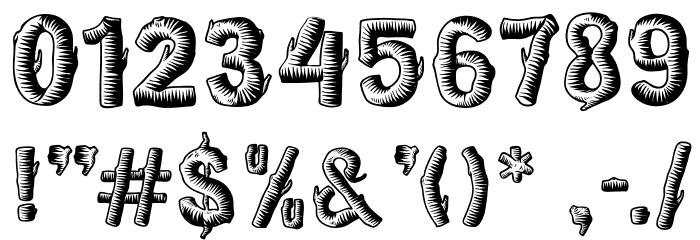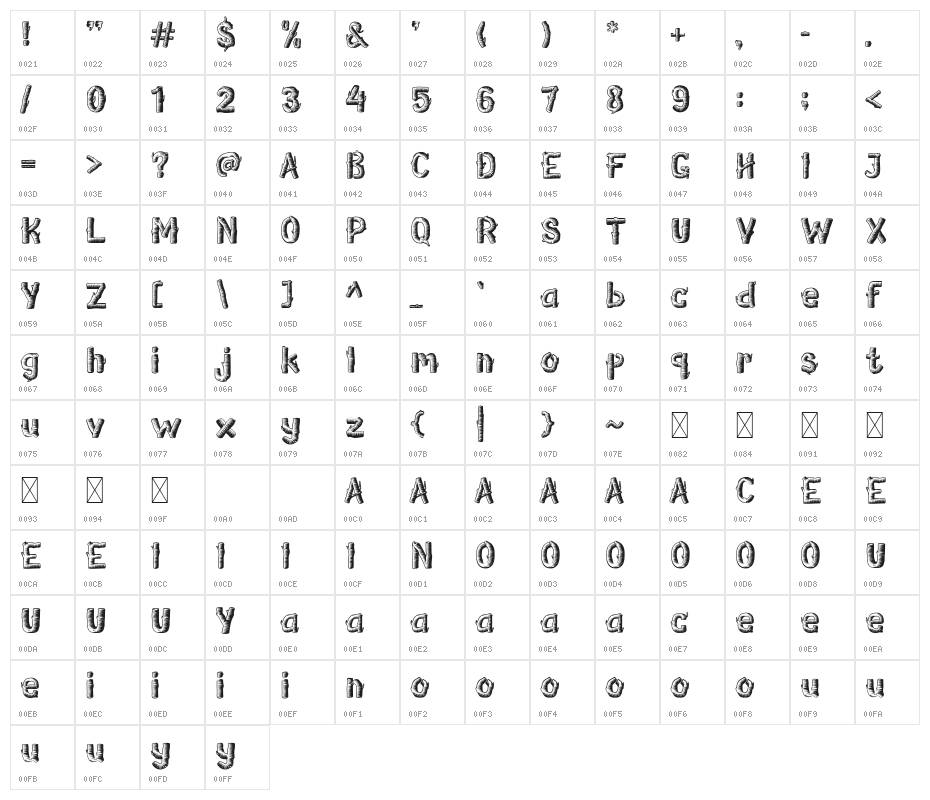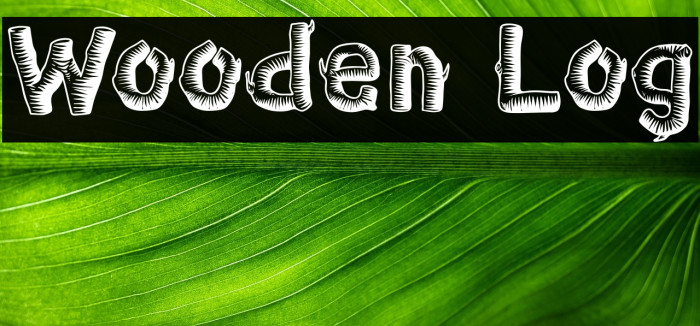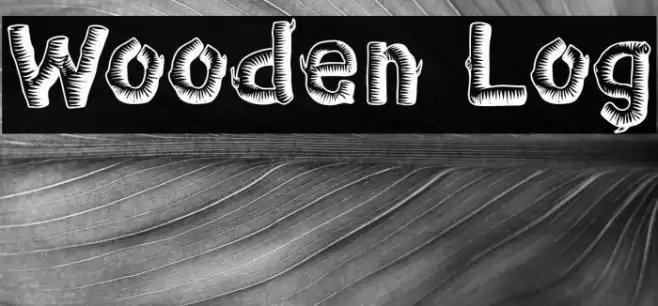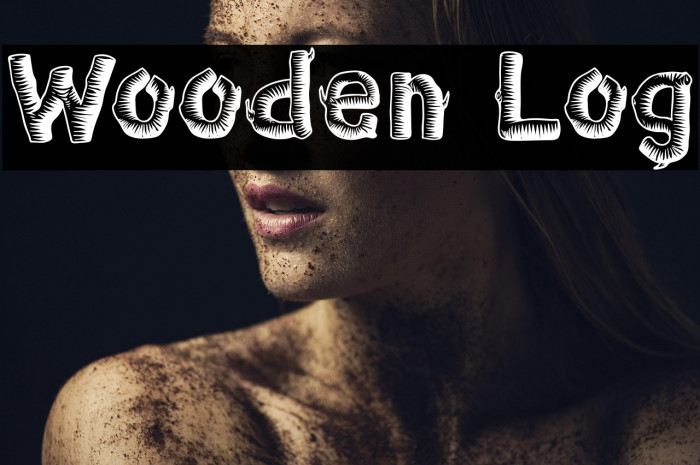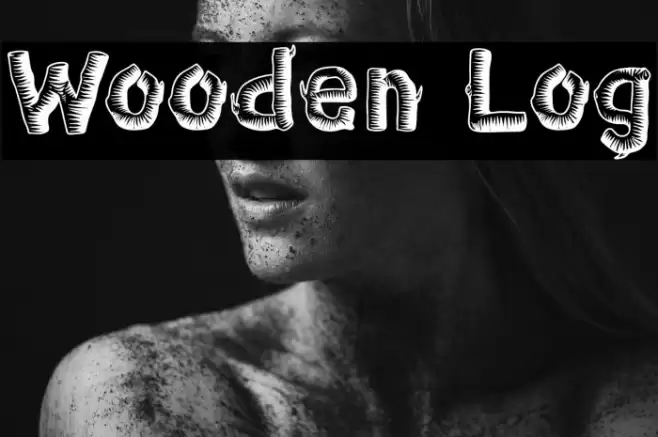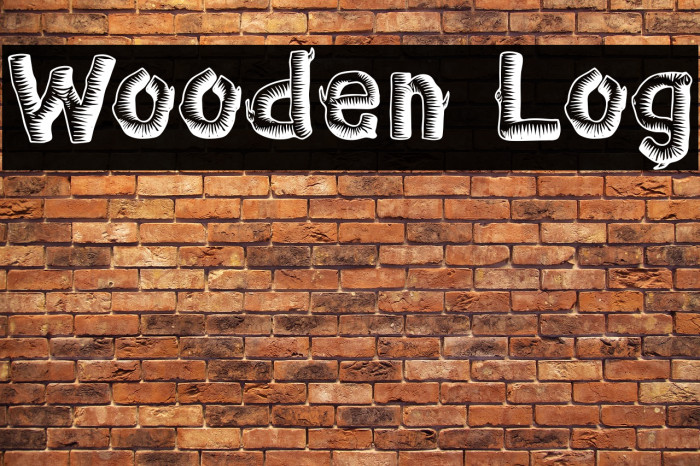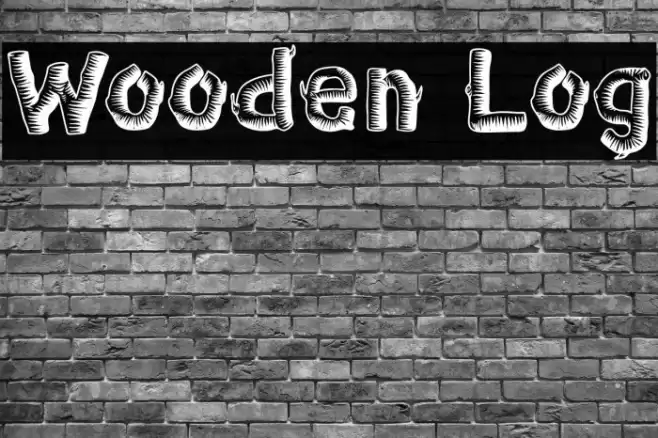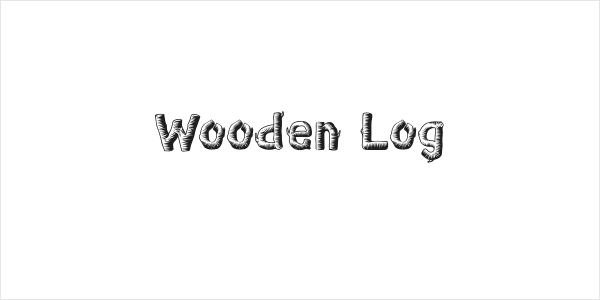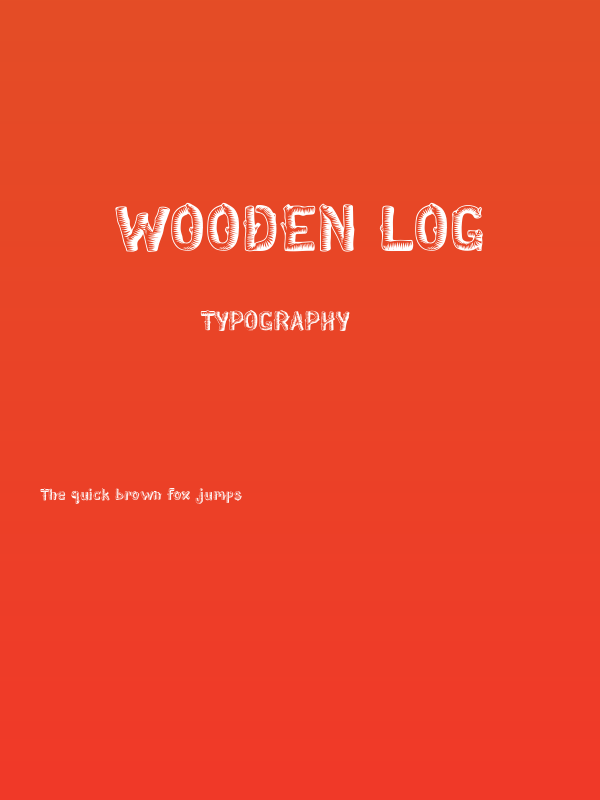
Wooden Log Font
Wooden Log Description
This font features a unique, textured style that mimics the appearance of carved wood. Each character is designed with intricate lines and shading, giving it a three-dimensional, rustic look. The letters are bold and slightly rounded, with a playful yet sturdy aesthetic. This font captures the essence of natural materials, making it ideal for projects that require a touch of the outdoors or a handcrafted feel. The detailed design of each character ensures that it stands out, making it suitable for eye-catching displays and creative projects.
| Proposed Projects | Ideal for nature-themed designs, rustic branding, outdoor event posters, and creative crafts. |